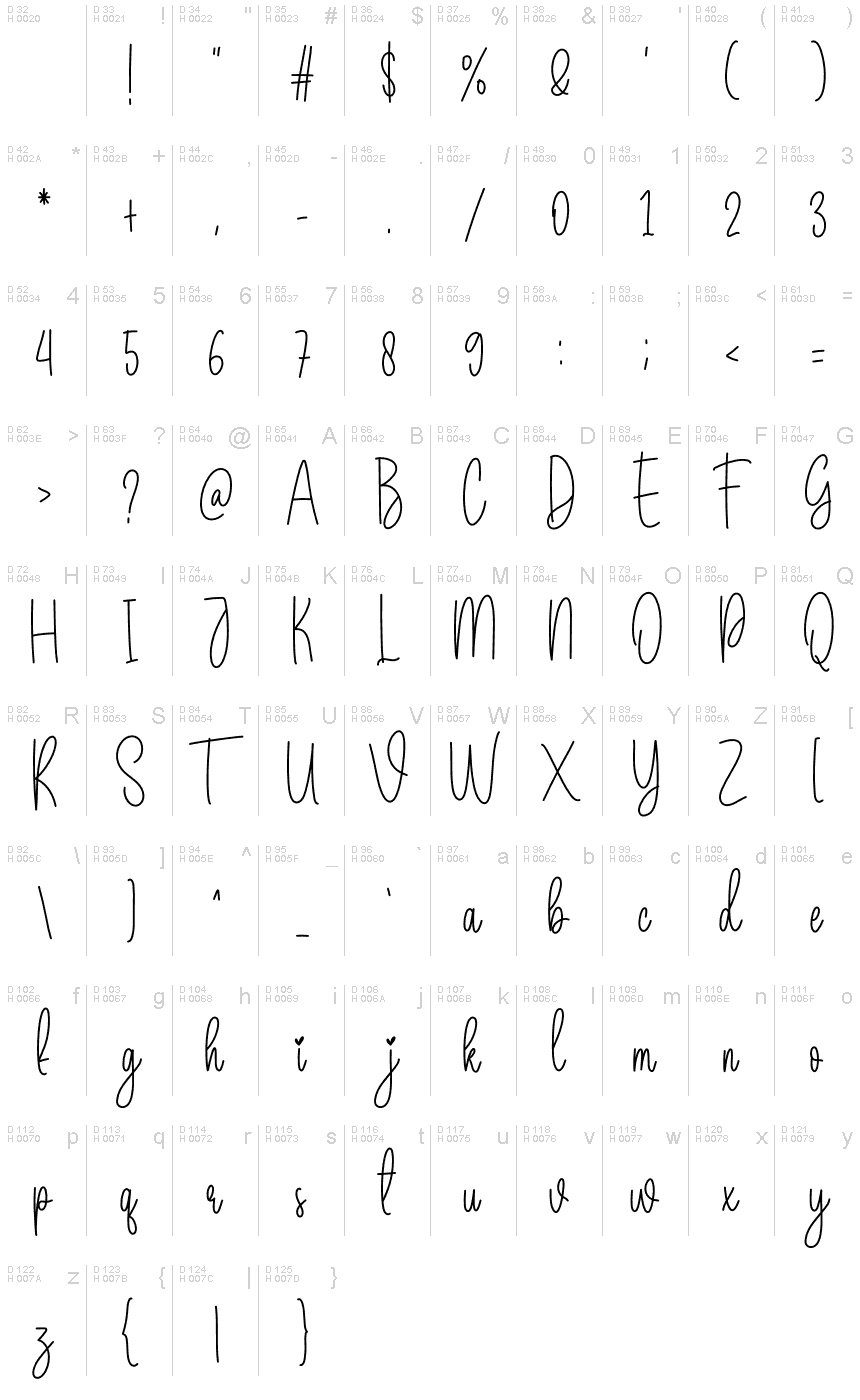
Wedding Package
Wedding Package by Scratchones ushers in an aura of elegance with its handwritten style, creating a personal touch that's ideal for your most cherished occasions. The light font weight dances gracefully across the page, offering a delicate sensibility that captures the essence of handwritten intimacy. Its condensed width adds to the sophistication, making it perfect for adding a refined flair to invitations, greeting cards, and other keepsakes where space is at a premium and readability is key.
The aesthetic appeal of Wedding Package lies in its harmonious balance between classic charm and modern minimalism. It speaks to those who appreciate understated beauty and timeless design. This font is not just for weddings; its versatility extends to branding, editorial projects, and any creative endeavor that calls for a touch of class with a personal twist. Embrace the allure of Wedding Package when your project demands an infusion of heartfelt elegance with every stroke.